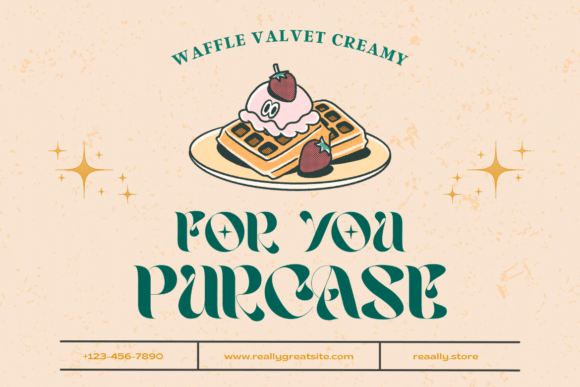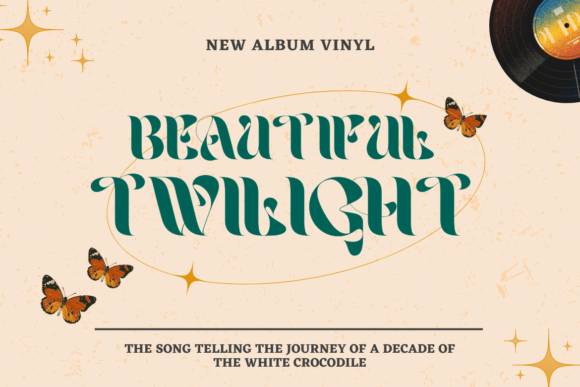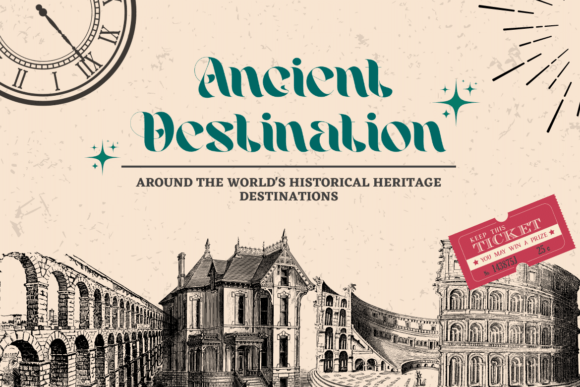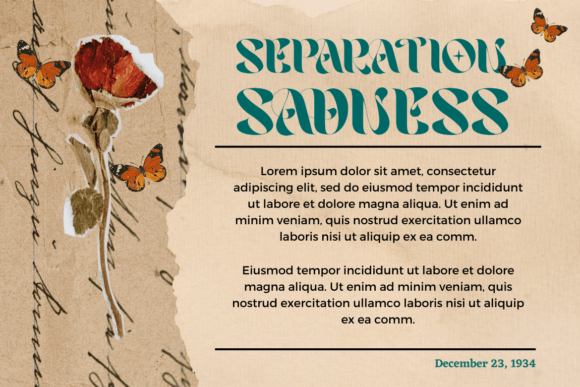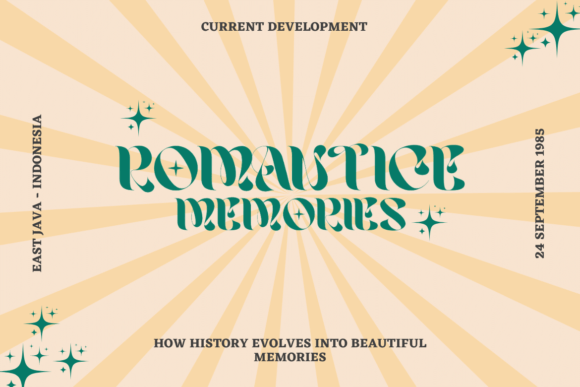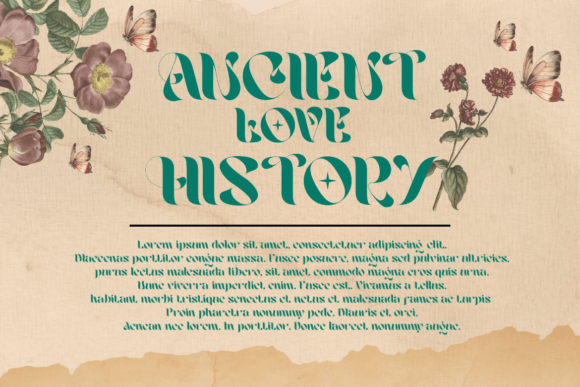
Introduction to Gironte Font
Do you remember that moment when a single font choice completely transformed your design project? For designers, it’s a magical experience where the right typography can elevate an entire creative project. I still recall the moment I stumbled upon the Gironte Font, and it instantly became a go-to design resource for my modern and vintage projects.
With its bold, retro display style, the Gironte Font is not only perfect for vintage designs but also shines in modern contexts like magazine headlines and advertisement headlines. Its strong impression leaves a lasting impact on the viewer. Plus, its high-quality design makes it a valuable addition to any designer’s toolkit.
Key Features of Gironte Font
- High-quality, unique design resource for creative projects
- Unique, elegant design perfect for branding, logos, and typography-based projects
Honest Review: Gironte Font
I recently stumbled upon the Gironte Font while searching for a design resource for my creative project, and I must say I was quite impressed. As a designer, I appreciate fonts that are not only visually appealing but also versatile and easy to use.
- ✨ Unique and elegant design style that adds a touch of sophistication to any text-based element.
- ✨ High quality, with crisp and clear details that ensure readability even at smaller font sizes.
- ✨ Transparent background, making it easy to use in both light and dark design schemes.
- ⚠️ Limited font styles, which may not be ideal for designers who require a wide range of font options.
- ⚠️ Not suitable for use in situations where a bold or condensed font style is required.
Overall, I’m quite impressed with the Gironte Font. Its unique design style, high quality, and free download make it an excellent addition to any designer’s toolkit. While it may have some limitations, I believe it’s a valuable resource for designers who are looking for a sophisticated and elegant font to add to their creative project.
Tips for Getting the Most Out of Gironte Font
To get the most out of Gironte Font, use it in combination with other design elements, such as graphics and images. You can also experiment with different font sizes and styles to create a unique look for your creative project.
Gironte Font is commonly used in creative projects, such as logos, business cards, and brochures. It’s also a popular choice for designers looking for a free download with a high-quality, transparent background.